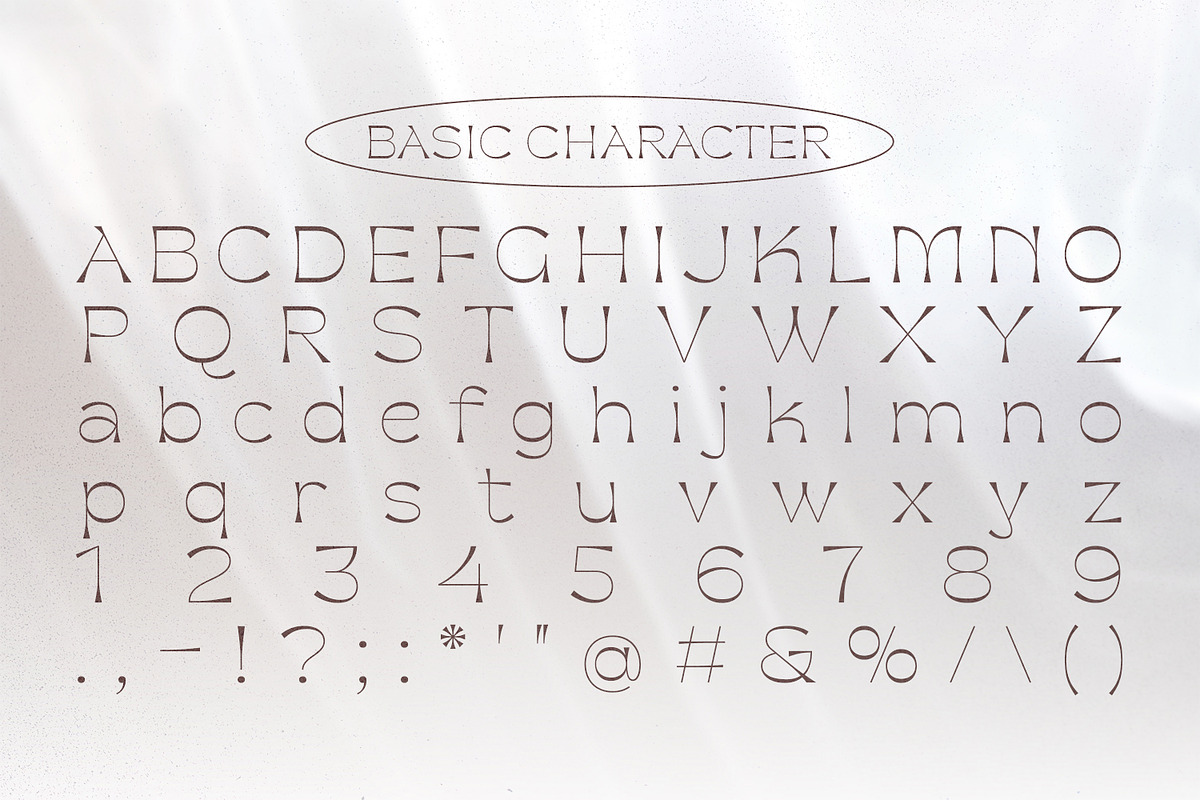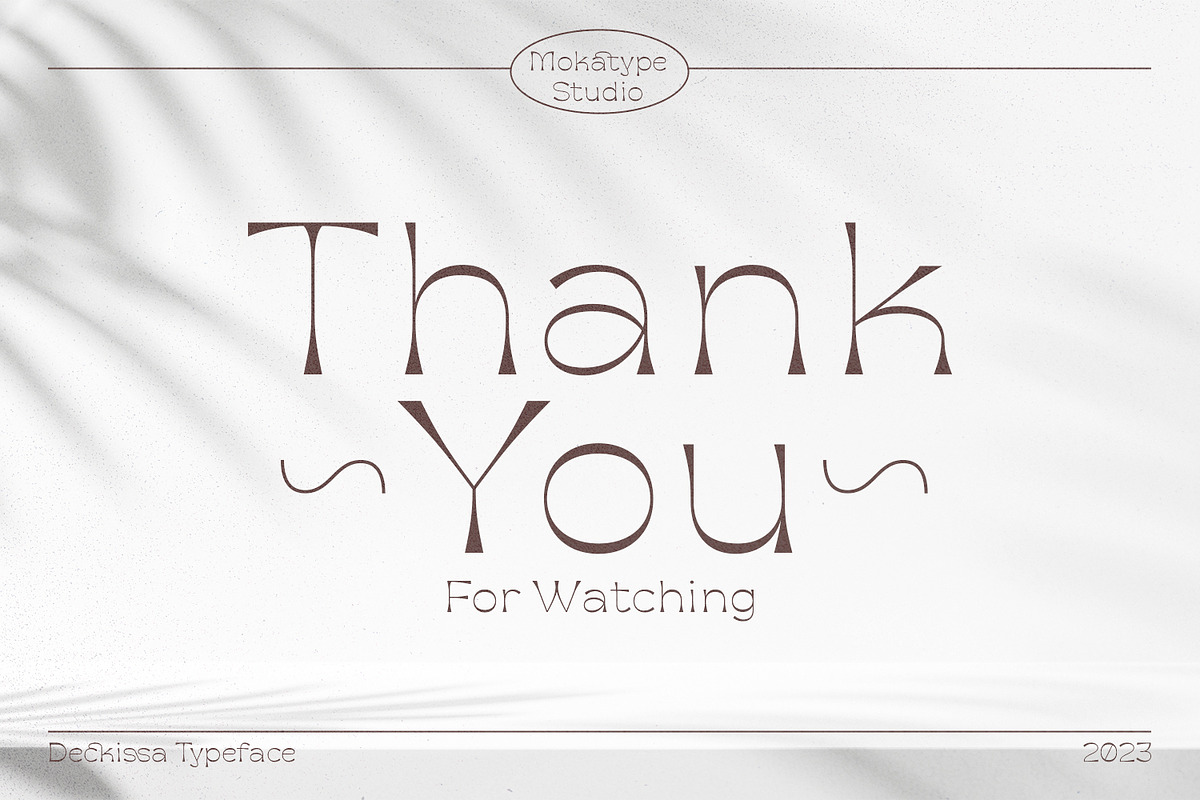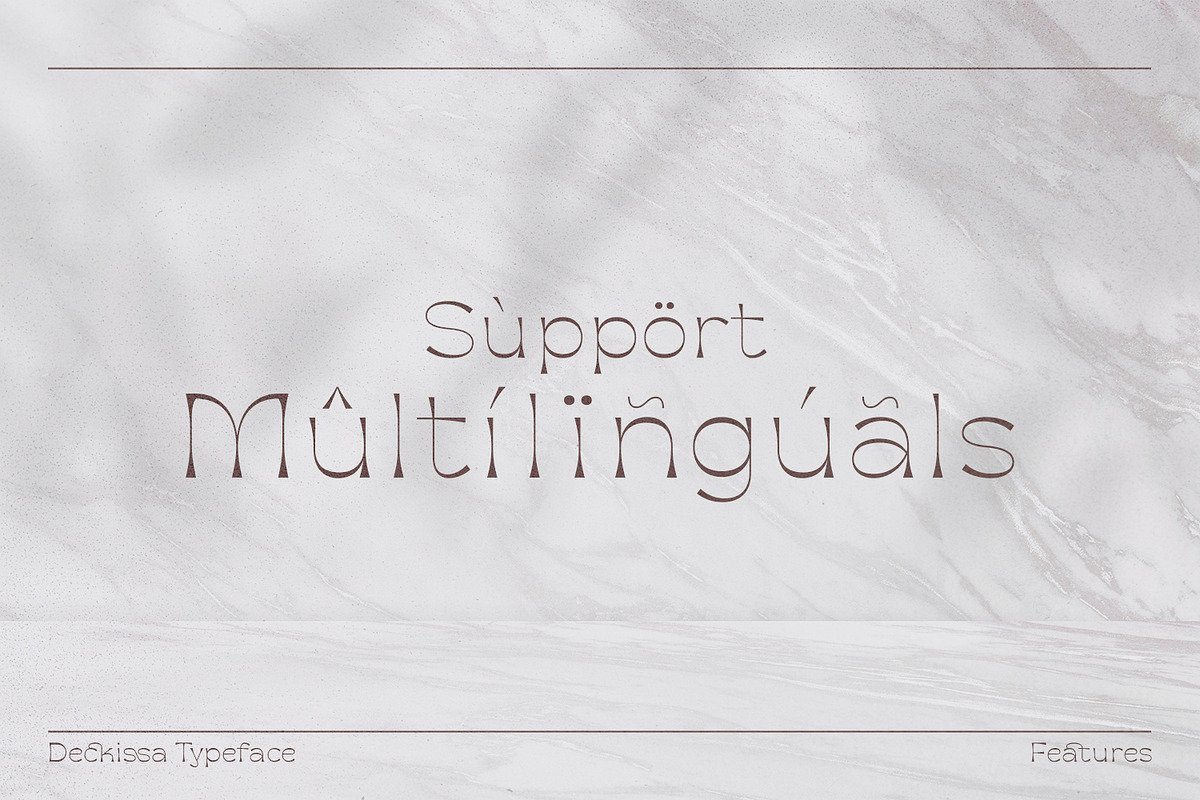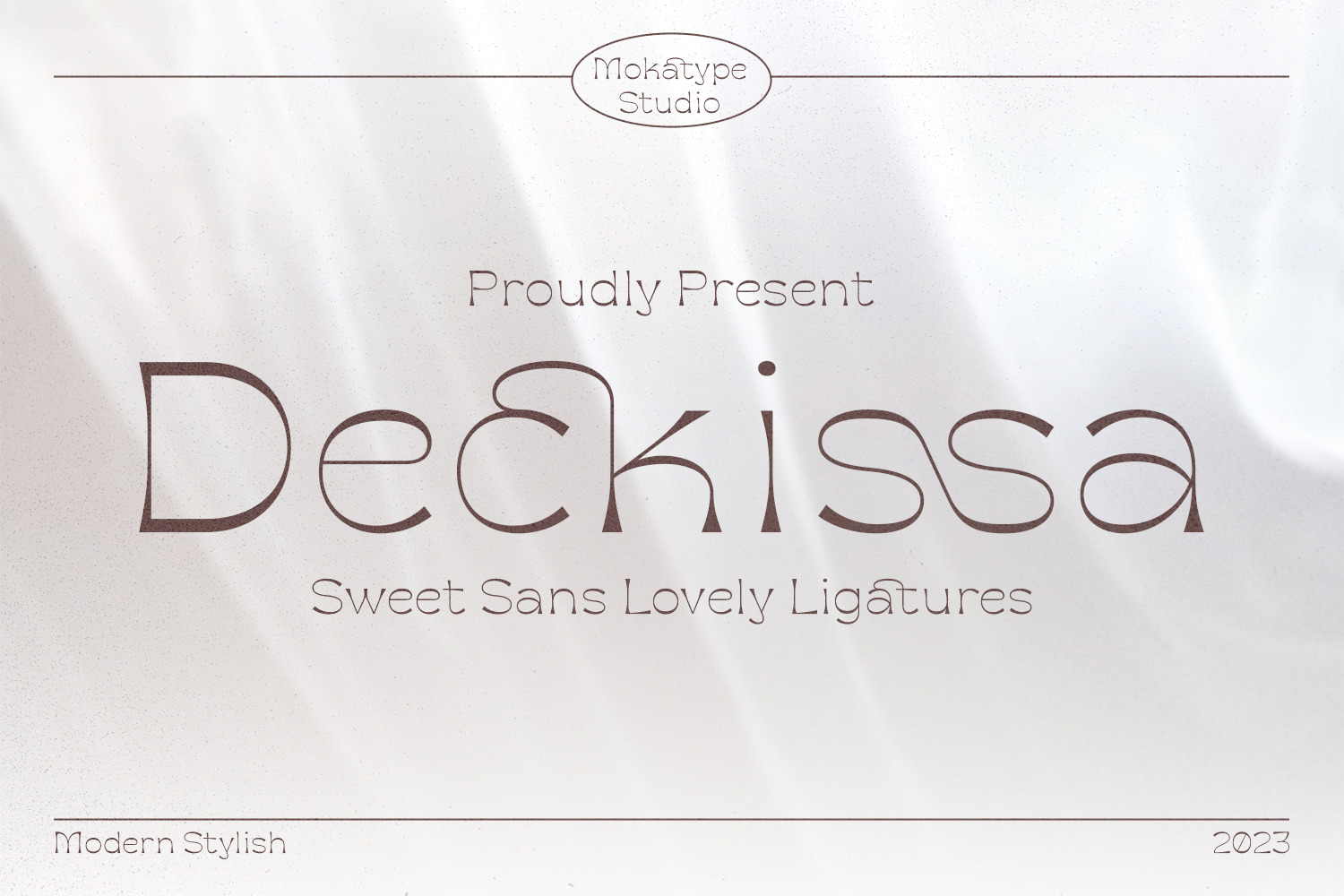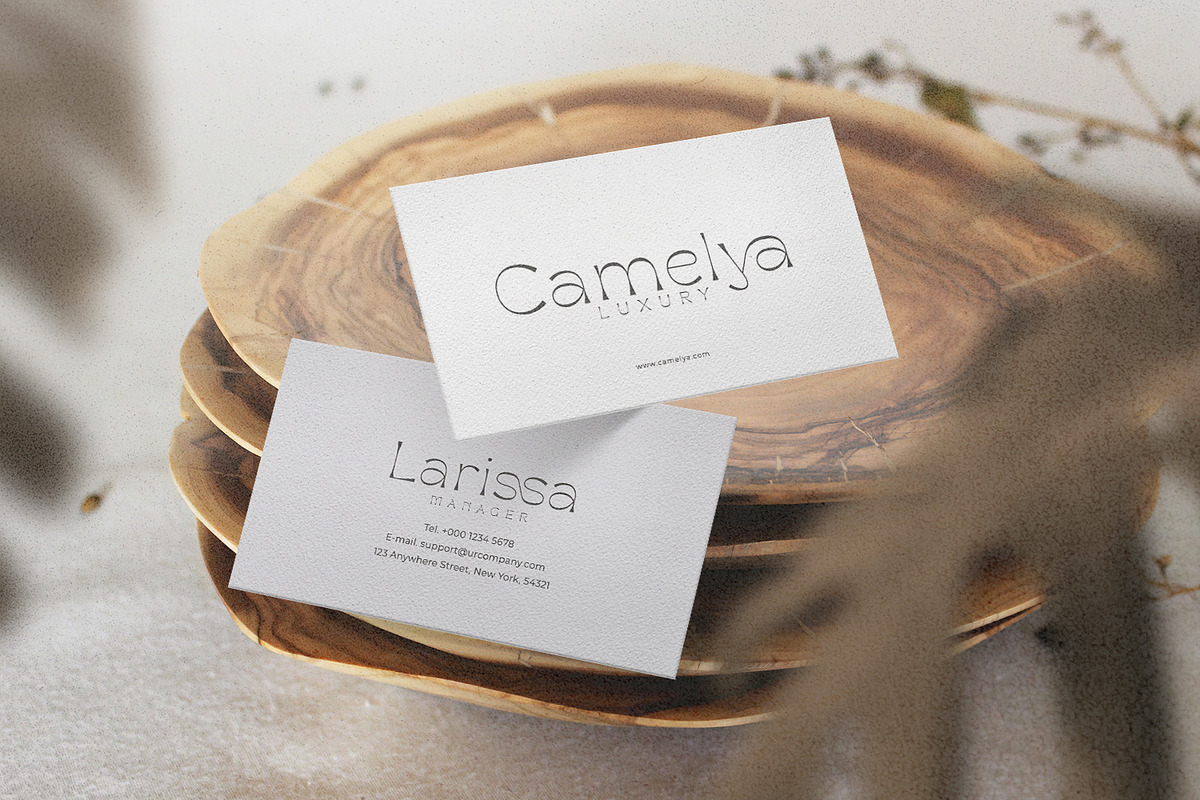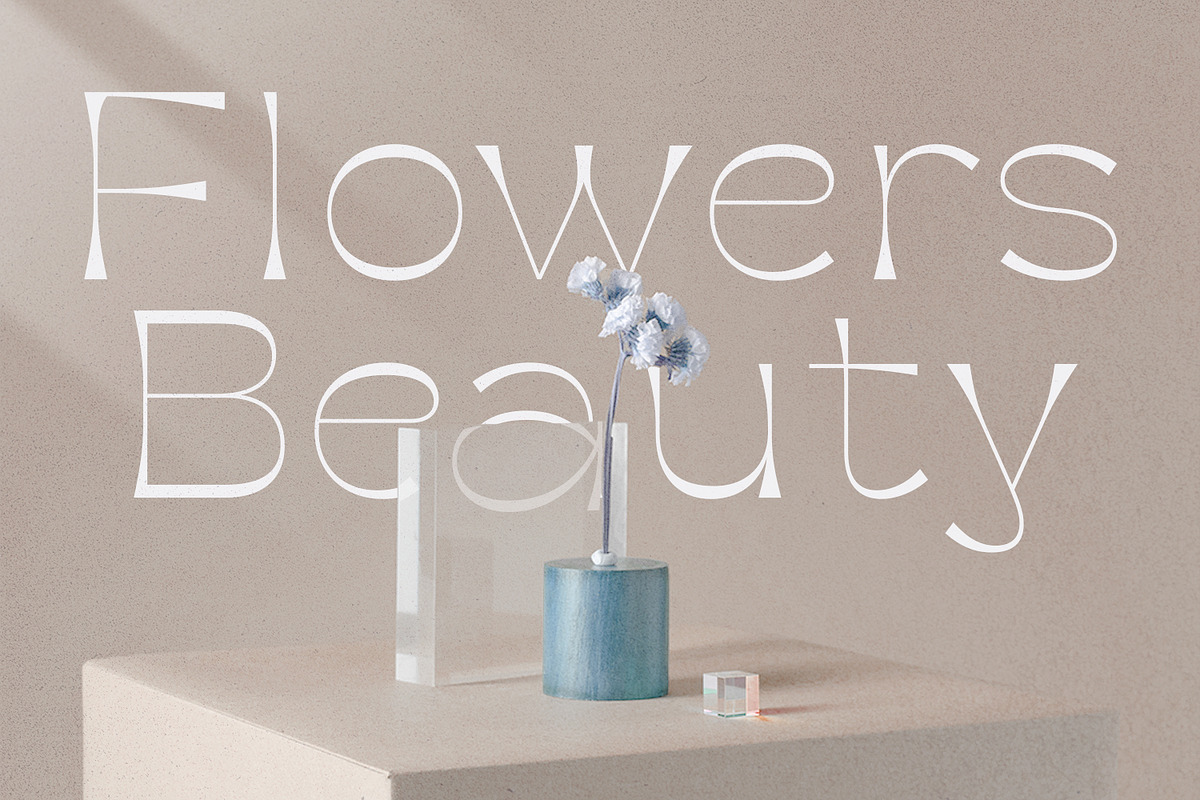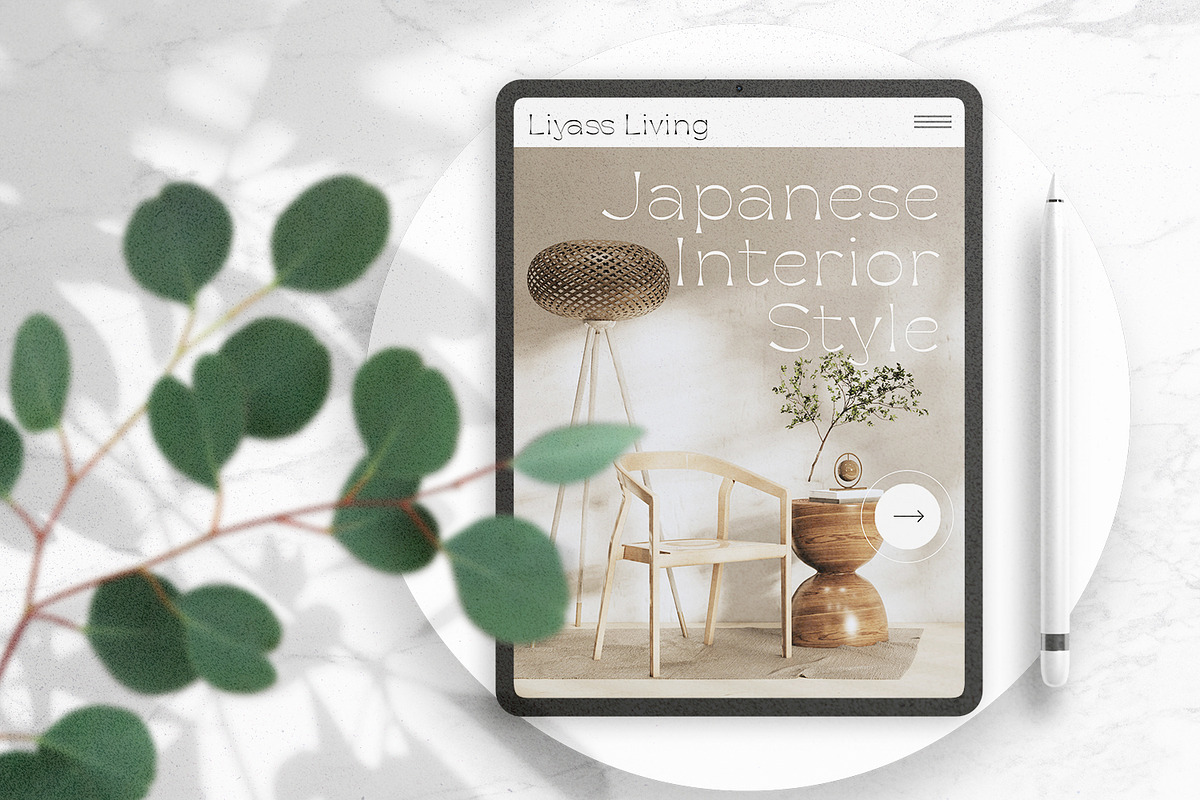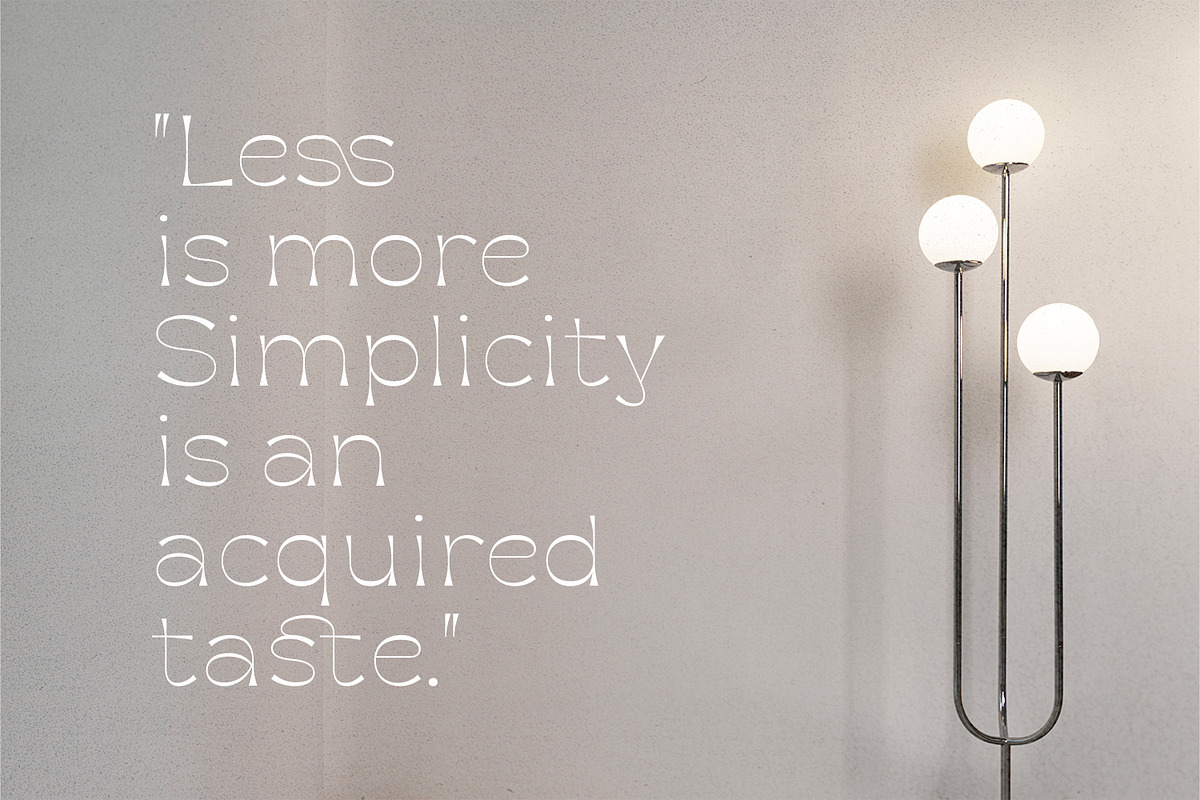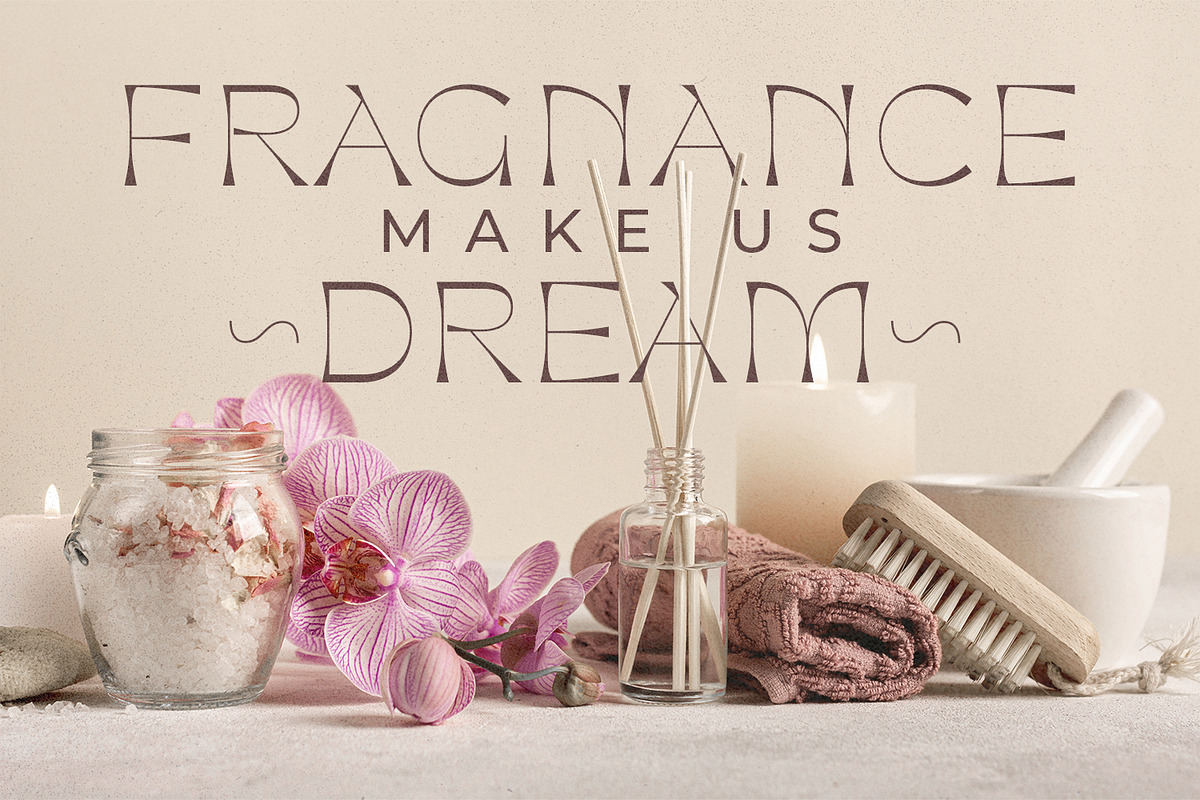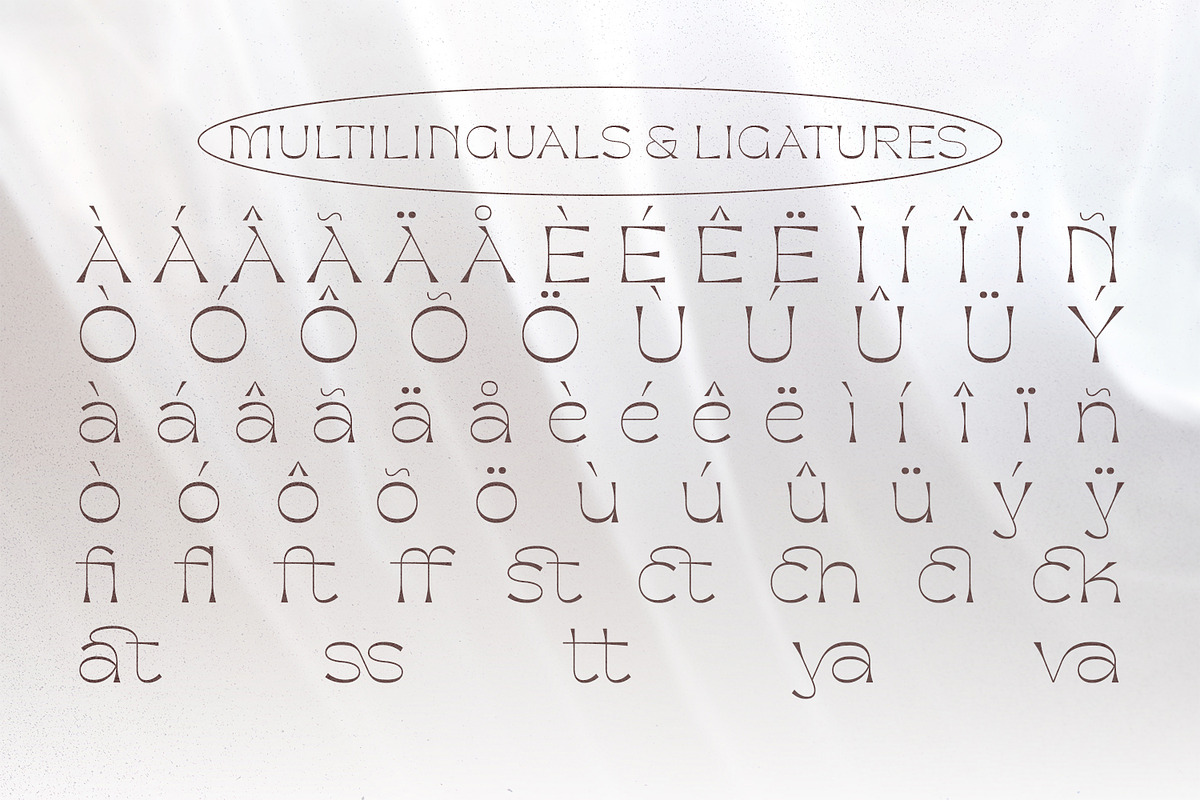
Deckissa - Lovely Serif Font
Deckissa is a reverse contrast serif font that is suitable for headlines and logos. Deckissa is built with a light stem, simple design, and nice curve that makes this font look elegant and luxurious. This font includes some ligature that you can combine to create a Headline, poster, or logo.
- Ligatures (Opentype features)